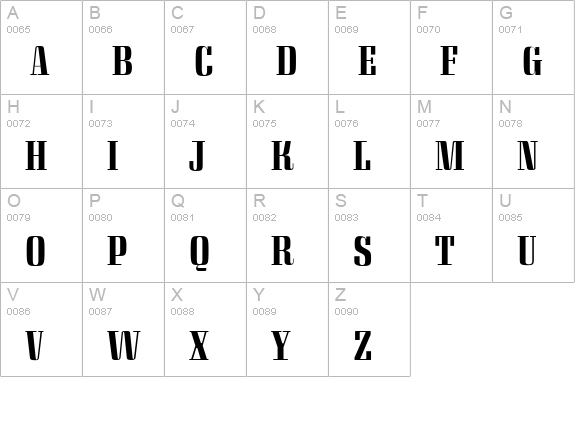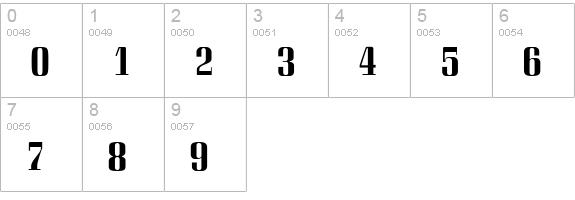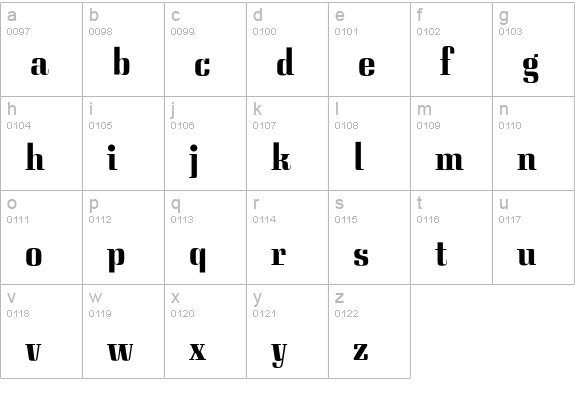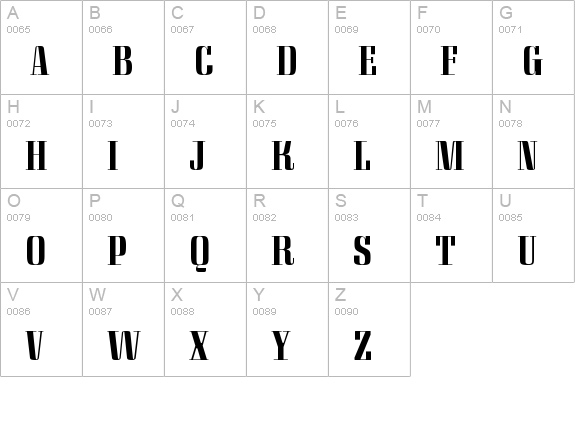
CgQuirinusBd Font Details
CgQuirinusBd font is a versatile and stylish typeface that exudes elegance and sophistication. With its bold and distinctive letterforms, this font is perfect for adding a touch of modern flair to any design project. Whether you're creating a logo, branding materials, or a poster, CgQuirinusBd font will make your text stand out. The best part is that CgQuirinusBd font is available for free download at FontsMarket.com. This means you can easily access this stunning font and use it in your projects without any cost. So why wait? Enhance your designs with the unique charm of CgQuirinusBd font today!